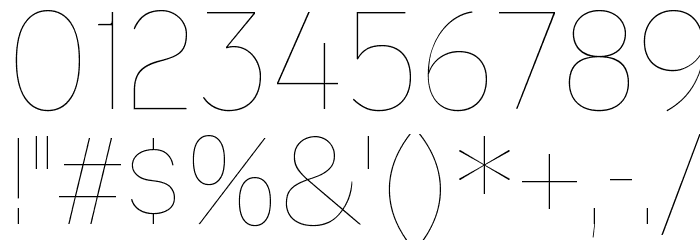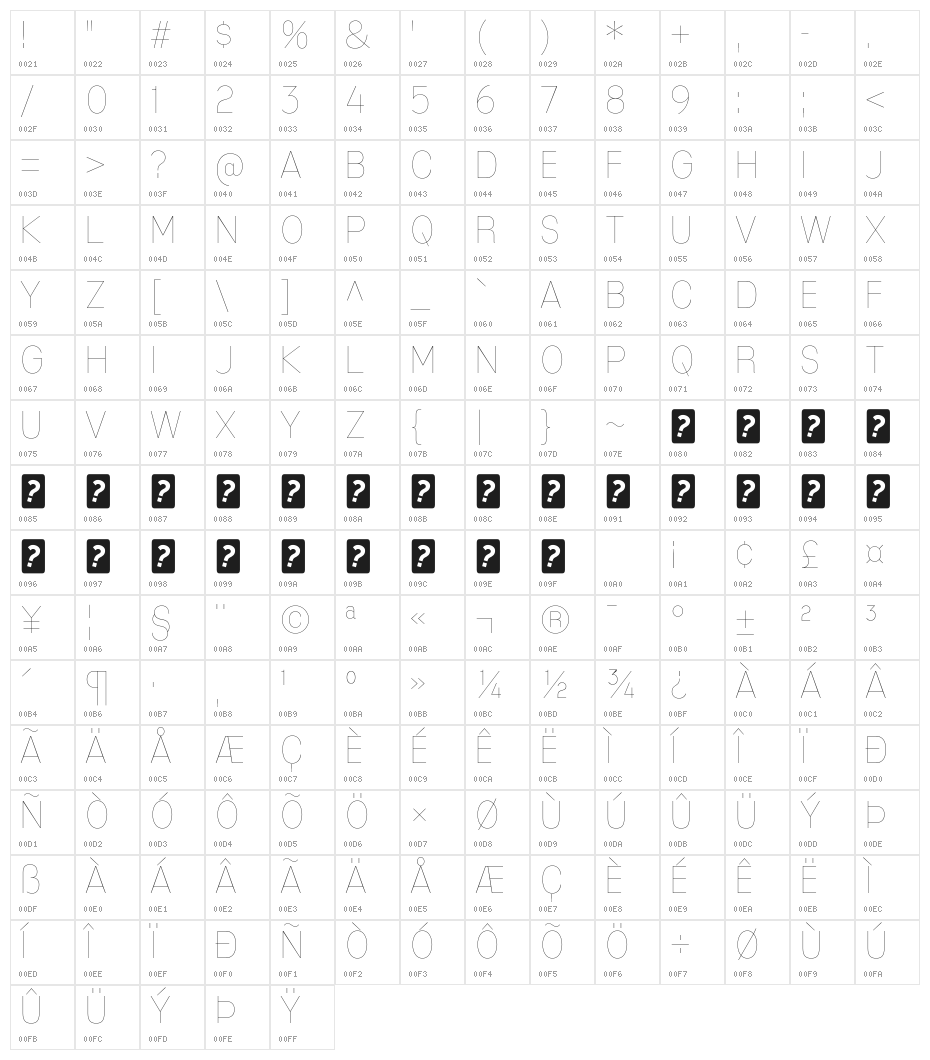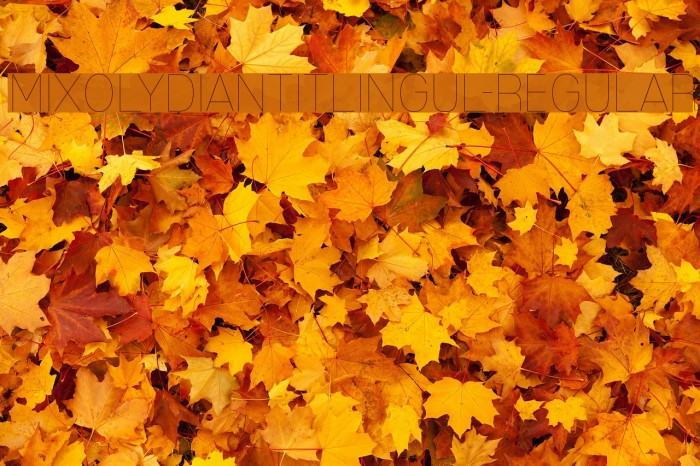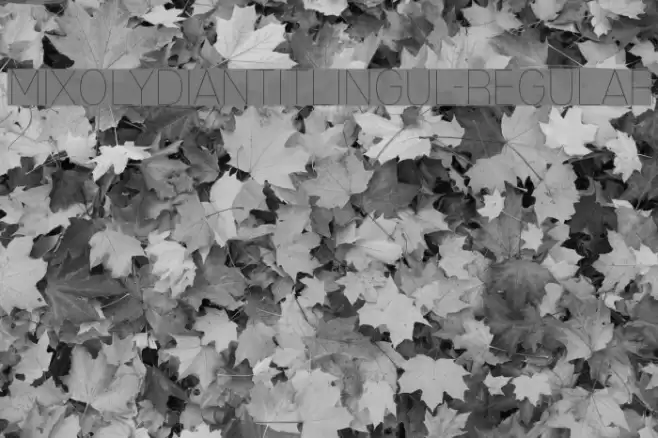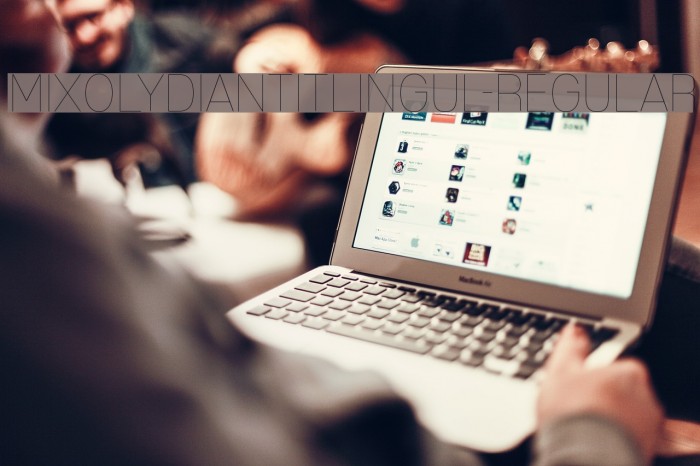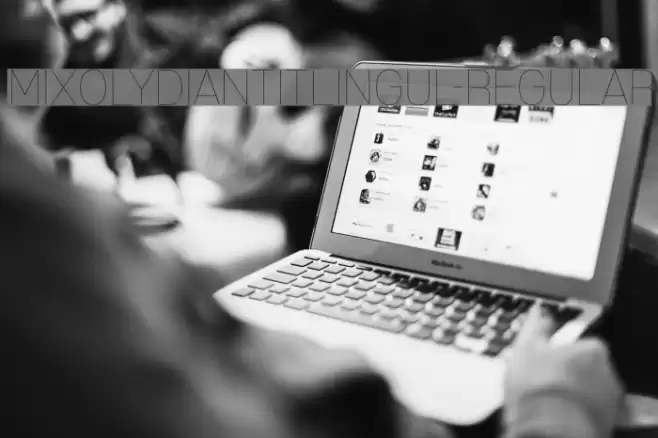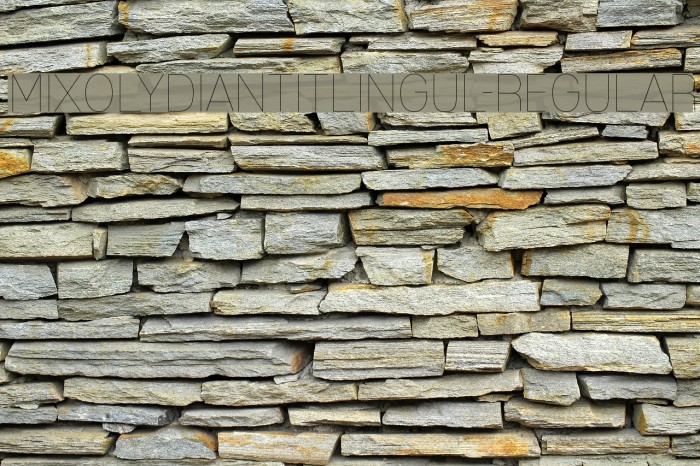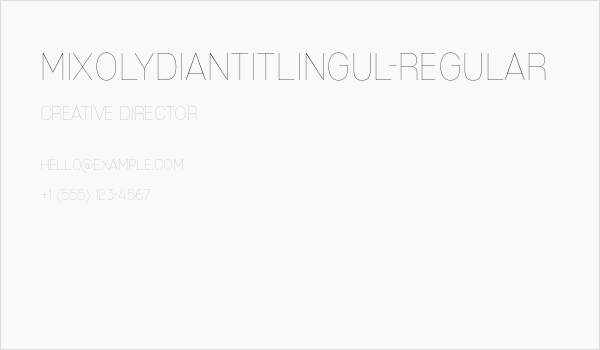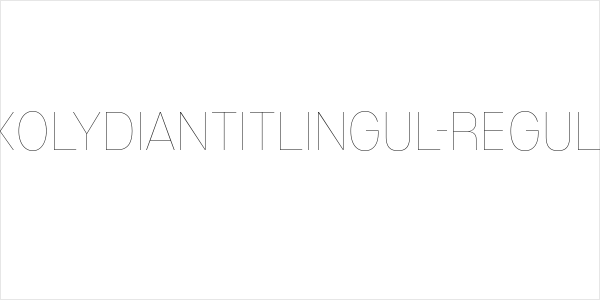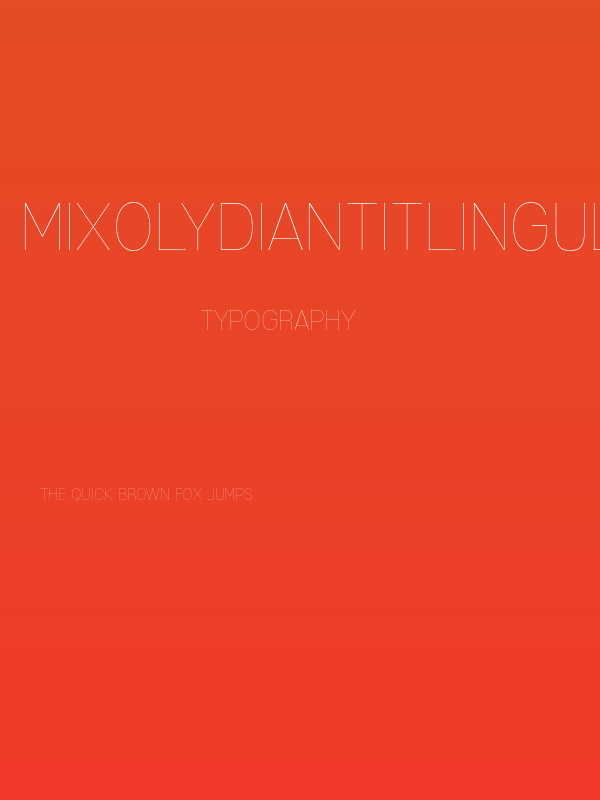
MixolydianTitlingUl-Regular Font
MixolydianTitlingUl-Regular Description
This font features a clean, geometric design with a modern aesthetic. The characters are constructed with thin, uniform strokes, giving it a sleek and minimalist appearance. The uppercase and lowercase letters maintain consistent proportions, contributing to a harmonious look. The numerals and special characters are designed with the same precision, ensuring a cohesive style throughout. Its simplicity and elegance make it versatile for various design applications.
| Use Case | Headlines, Logos, Editorial design |
| Proposed Projects | Ideal for branding, editorial design, and digital interfaces where a clean and modern look is desired. |